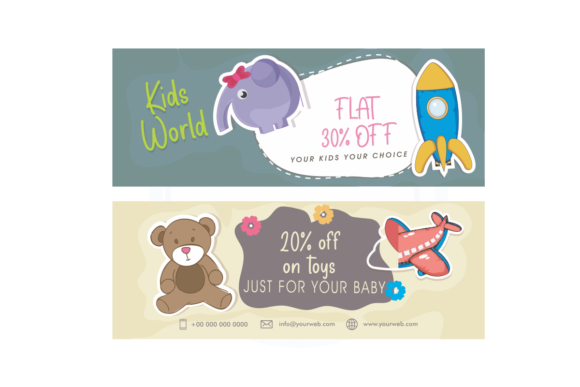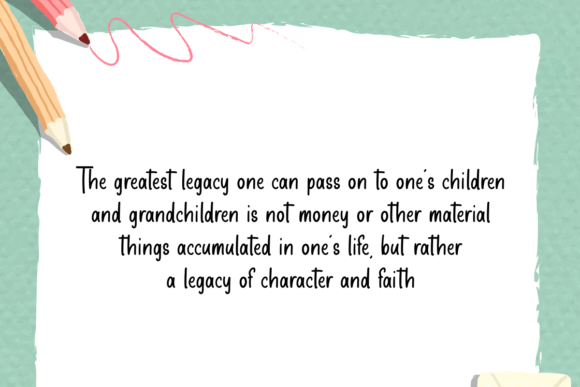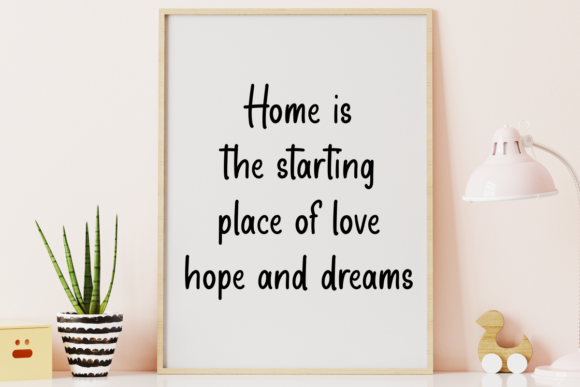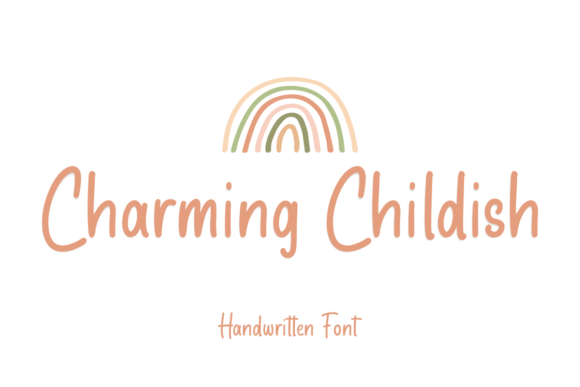
Introduction to Charming Childish Font
Charming Childish is a lovely, neat and well balanced handwritten font.
Whatever the topic, this font will be a wonderful asset to your font library, as it has the potential to enhance any creation .
Why Choose Charming Childish Font?
Charming Childish Font offers exceptional quality and versatility, making it a valuable addition to your design toolkit. Whether you’re creating for personal projects or commercial use, Charming Childish Font delivers professional results.